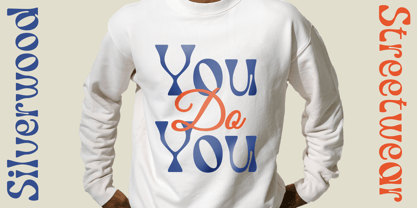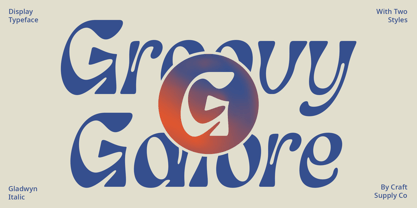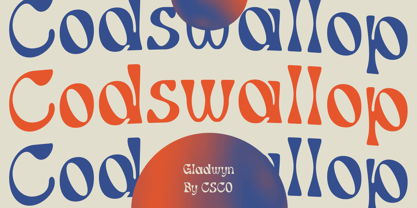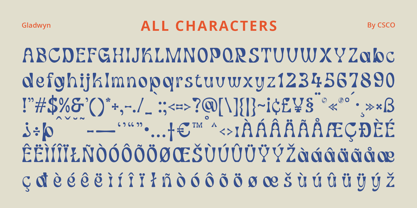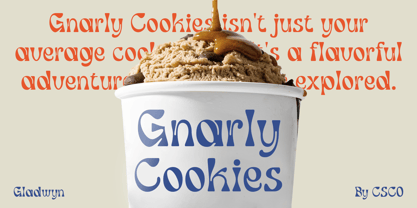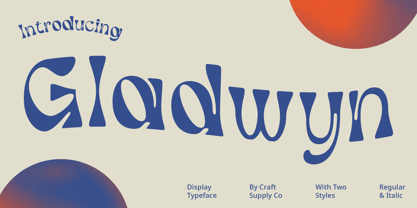
Gladwyn
by Craft Supply Co
The Gladwyn Font Family was designed by Trio Nazzar Saputra, Wahyu Hadi Yuana and published by Craft Supply Co. Gladwyn contains 2 styles and family package options. More about this family
Gladwyn: Embracing Funky Display Typography Vibrant and Playful Design Gladwyn exudes a vibrant and playful vibe with its funky design, making it perfect for eye-catching displays. Its bold strokes and lively curves captivate attention, ensuring that your message stands out in any setting. Distinctive Funky Nuances The font boasts distinctive funky nuances that set it apart, injecting a sense of fun and personality into any project. Its quirky elements and unique character variations add depth and charm to your designs, creating a memorable visual impact. Tailored for Display Needs Crafted specifically for display purposes, This font shines in various contexts, from posters to digital advertisements. Its bold and expressive nature ensures that your message is conveyed with clarity and style, captivating audiences with its energetic presence. Versatile Application With its fun and energetic design, This font offers versatility in application, lending itself well to branding, packaging, and more. Whether you’re designing a funky concert poster or a playful social media graphic, Gladwyn provides the perfect typographic solution for your creative endeavors. Adding Fun to Displays This font emerges as a dynamic choice for display typography, infusing projects with a playful and funky aesthetic. Its versatility and eye-catching design make it a valuable asset for various creative endeavors. Step into the world of Gladwyn and bring a burst of fun to your displays.
Designers: Trio Nazzar Saputra, Wahyu Hadi Yuana
Foundry: Craft Supply Co